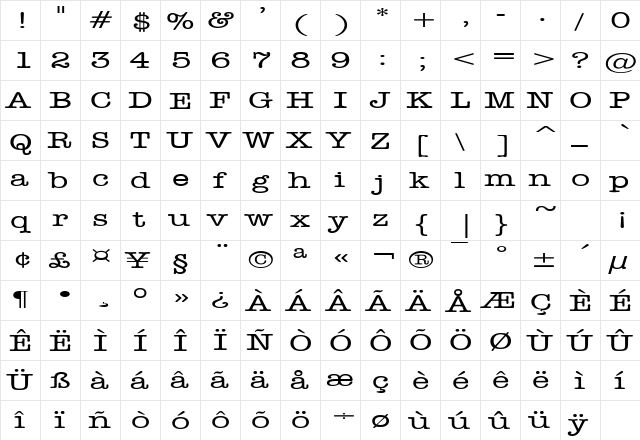
DatelineExtended Regular
Design Context for DatelineExtended Typeface
DatelineExtended offers clean, dependable letterforms without strong stylistic allegiance, making it a practical choice for designers who need flexibility.
Pro Tip: Use DatelineExtended in both headline and body roles to test its range before committing to a single application.